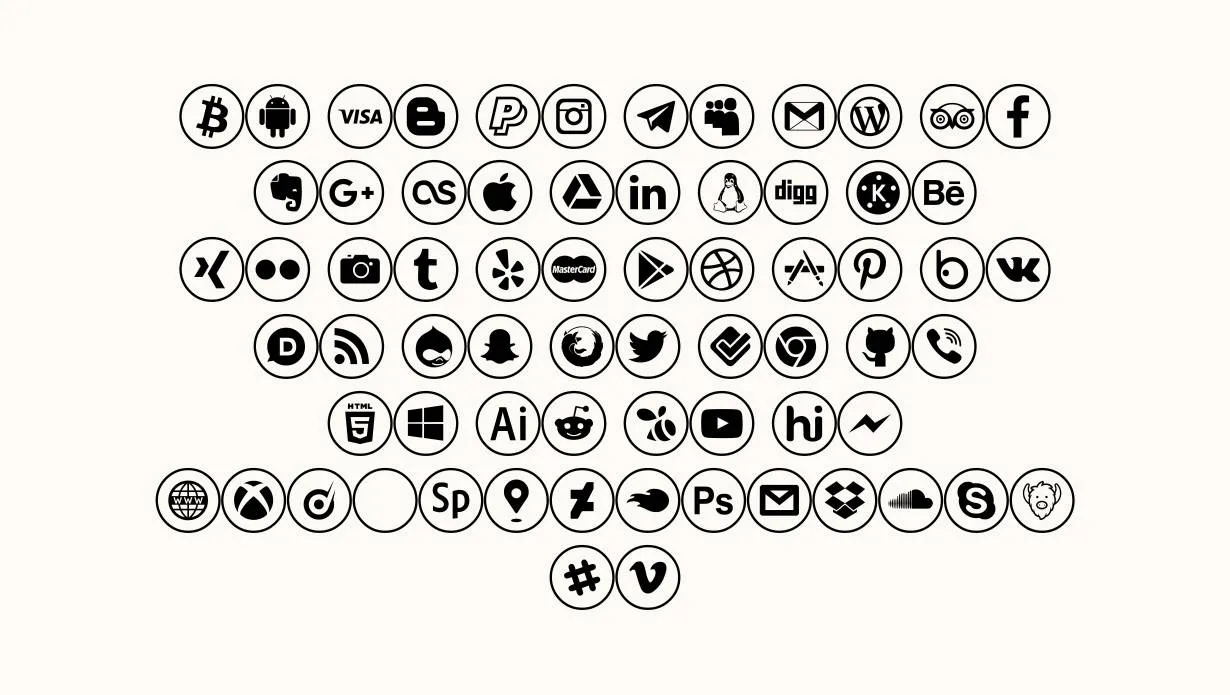
Icon fonts are a unique set of symbols and shapes that have found extensive use in web design. They are lightweight and versatile, allowing for quick loading times on web pages. Web designers often use icon fonts to represent common actions or objects, making interfaces more user-friendly.
For instance, icons like arrows, home symbols, and shopping carts enhance user experience by offering quick visual cues. These fonts are valuable in creating infographics, adding visual elements to data, and aiding in the creation of intuitive, engaging user interfaces.
| Name | Icon Font |
| Designer | Metafontsy |
| Style | Dingbats |